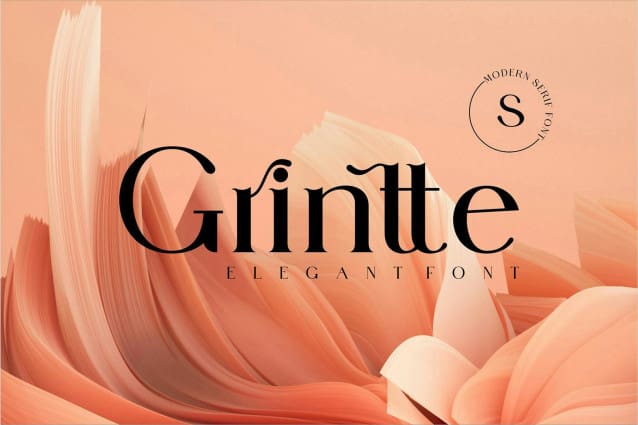
Grintte Font
Grintte Font is an elegant and chic serif font. This font is both modern and nostalgic and is perfect for logos, magazines and social media. Already matched and ready to use together for your next design! For those of you who need a touch of elegance, class, chic and modernity for your designs, this font was created for you!
Grintte Font was built with OpenType features and includes ligatures, numbers, punctuation and supports other languages ​​as well.